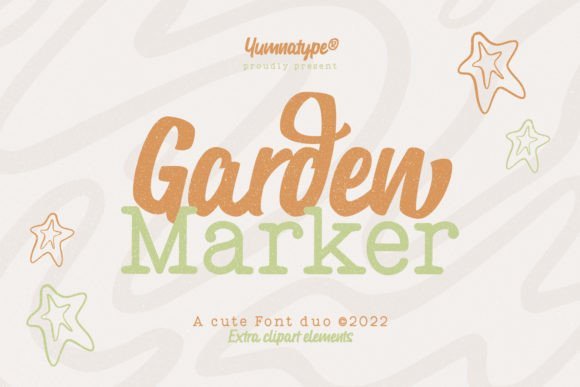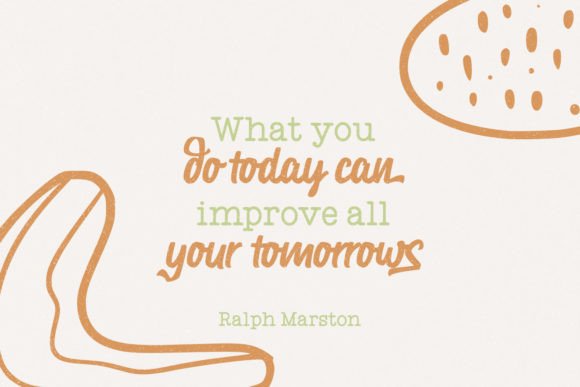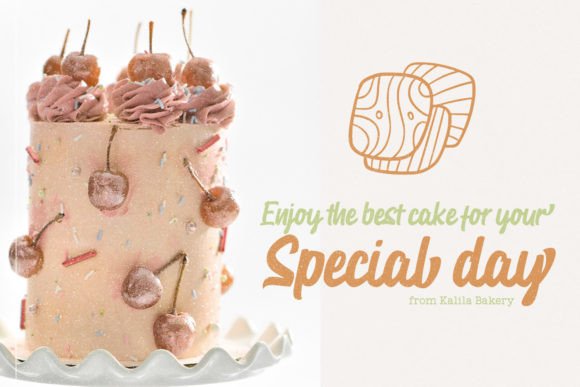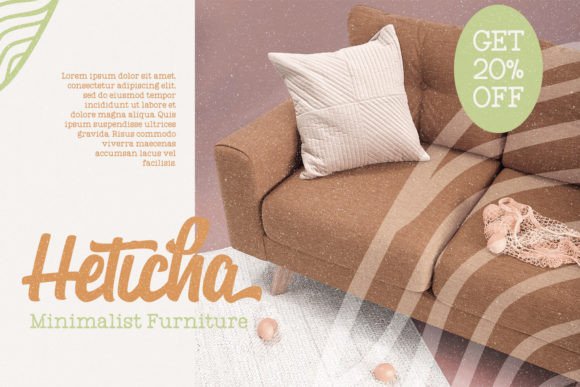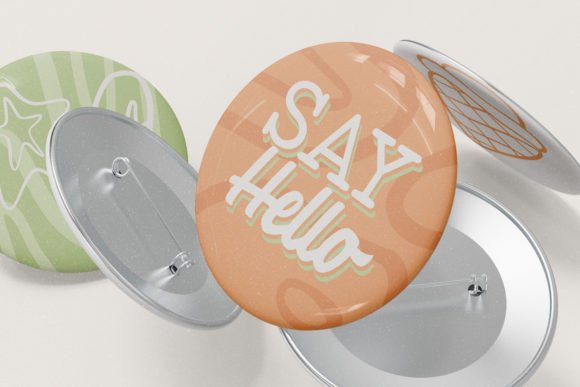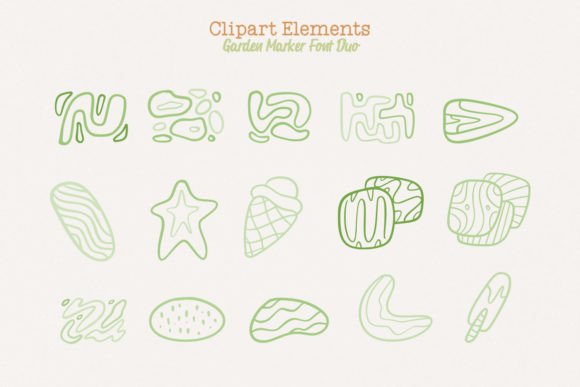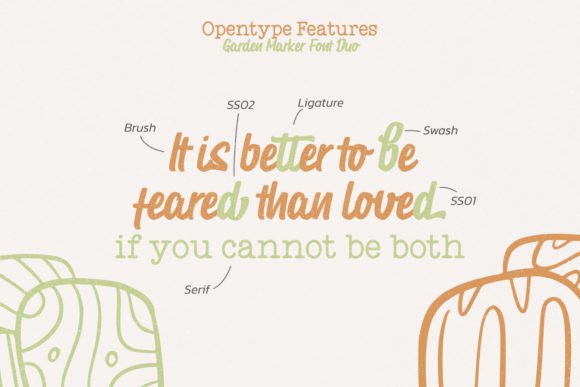
The Perfect Blend of Classic and Contemporary: Unveiling the Garden Marker Font
As a designer, there’s nothing quite like the thrill of bringing a new project to life. The blank canvas, the endless possibilities, and the excitement of seeing your vision take shape. For me, it all starts with the perfect font – the one that sets the tone and captures the essence of the design. And that’s exactly where the Garden Marker Font comes in.
With its exquisite blend of classic and contemporary elements, the Garden Marker Font is the perfect choice for designers seeking to add a touch of luxury and charm to their work. Its clean lines, refined details, and playful curves make it an exclusive serif font that’s sure to elevate any project. Whether you’re creating a beautiful garden label or a high-end brand identity, the Garden Marker Font is an invaluable asset for designers who demand the best.
- Unique Characteristics: Custom-designed for garden markers, featuring rounded edges, smooth curves, and subtle texture, creating a charming and rustic feel.
- Customization Options: Includes a set of 20+ decorative elements, such as flowers, leaves, and borders, allowing users to personalize their garden markers.
Garden Marker Font Review
I recently had the chance to work with the Garden Marker Font, and I must say it’s a unique and charming addition to any design project. ✨ Here are a few things that stood out to me:
- Customizability: The font offers a range of customization options, including color, size, and style, making it easy to tailor it to your specific needs.
- Readability: Despite its playful design, the font is surprisingly easy to read, even at smaller sizes.
- Creativity: The font’s whimsical feel makes it perfect for projects that require a touch of personality.
- Limited language support: The font may not support all languages, which could be a concern for international projects.
- Not suitable for formal projects: While the font is great for creative projects, it may not be the best choice for formal or professional designs.
Overall, I think the Garden Marker Font is a great addition to any designer’s toolkit. Its customizability, readability, and creative feel make it a great choice for a wide range of projects. However, its limitations should be carefully considered before using it for more formal or complex designs.
For the best results, use the Garden Marker Font with a clean and simple design. Avoid using too many colors or complex graphics, as they may distract from the font’s unique character. Experiment with different font sizes and styles to create visual interest.
Lato is a sans-serif font that is highly legible and suitable for various applications, including garden markers. It has a clean and modern look, making it an excellent choice for those who want a font that is easy to read and visually appealing. Compared to Garden Marker Font, Lato is more versatile and can be used in a wider range of designs, from modern to minimalist.
Playfair Display is an elegant serif font that is perfect for adding a touch of sophistication to garden markers. Its luxurious and refined look makes it ideal for formal gardens or high-end outdoor spaces. While it is more ornate than Garden Marker Font, Playfair Display can add a sense of luxury and sophistication to garden markers, making it a great choice for those who want to elevate their garden design.